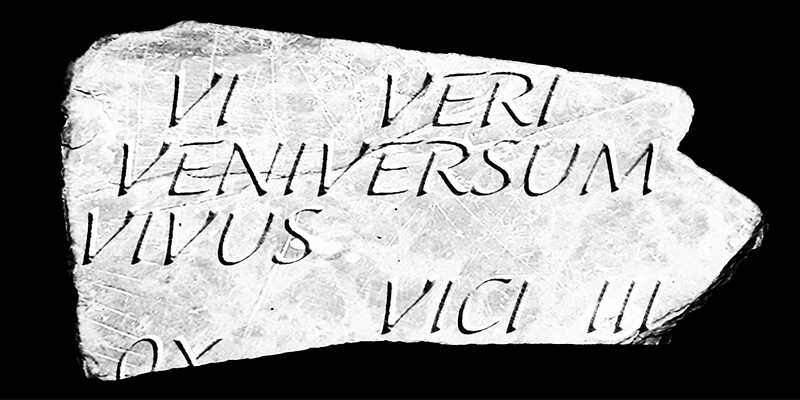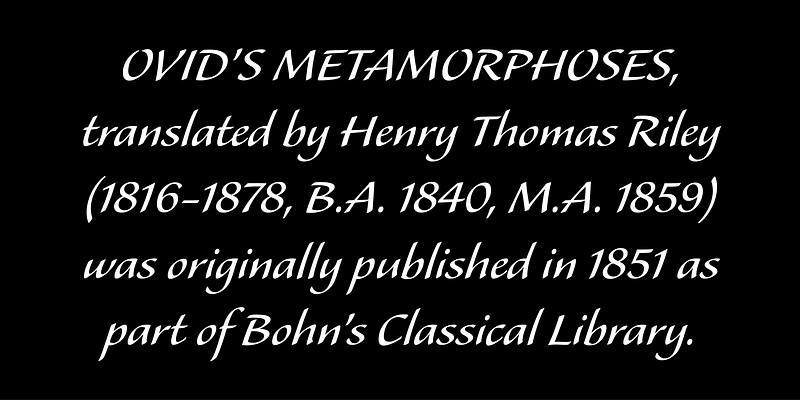
America’s most famous carver of inscriptions, including those at the John F. Kennedy Memorial in Arlington National Cemetery, John Benson modeled this friendly, casual script after his own handwriting and gave it the name of his beloved niece. Although based on the cancelleresca style of 16th-century Italian writing masters, Alexa has no swash terminals or ligatures. The absence of these features and its pronounced slope give this 1995 Adobe Originals release a distinctly modern look for lively lines and pages. Use Alexa at both text and display sizes.